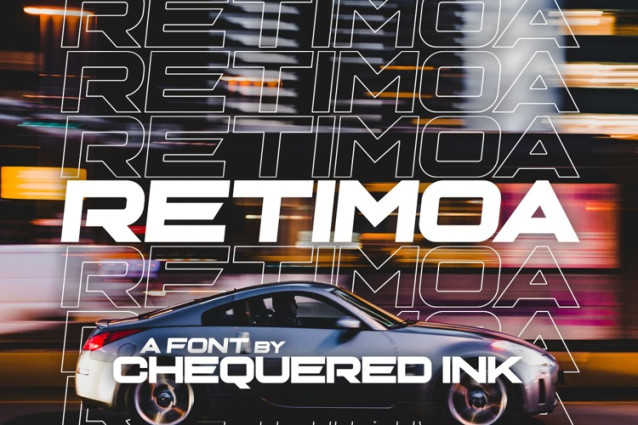
Retimoa Font
Retimoa Font is a simple and modern display font suitable for quotes, logos, headings, titles, and many more. Use it on any of your creative projects, and your designs will become outstanding!